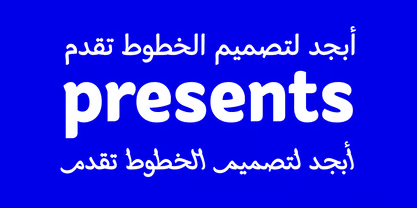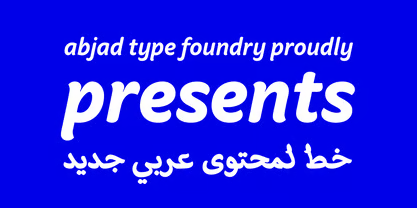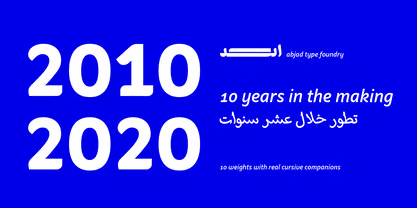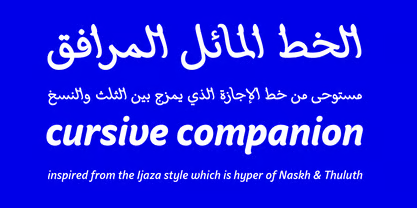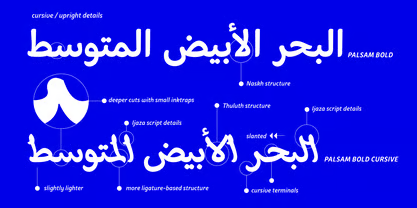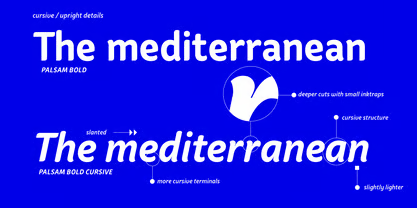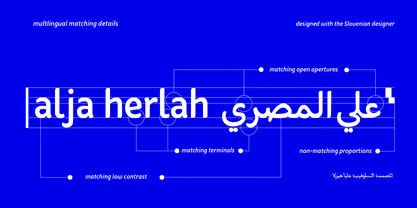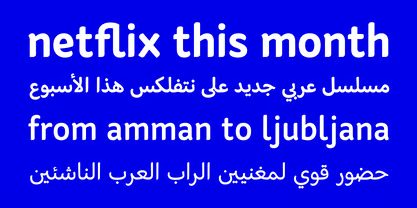
Palsam Arabic Font Family
Balsam—meaning a soothing, healing balm—is a thoughtfully crafted typeface that brings comfort and warmth to Persian, Arabic, and Urdu typography. With its gentle curves and approachable character, this font is designed to create designs that feel welcoming, nurturing, and emotionally resonant across all three scripts.
Design Characteristics:
• Gentle, soothing Persian, Arabic, and Urdu letterforms
• Warm, approachable character with healing quality
• Balanced proportions for excellent readability
• Soft curves with refined elegance
• Comforting visual presence
Persian (Farsi) Script:
• Complete Persian character set
• Full support for Persian-specific characters (گ، چ، پ، ژ)
• Correct representation of Persian numerals
• Proper character connections and positioning
• Gentle styling across all letters
Arabic Script:
• Coordinated Arabic design matching Persian style
• Complete Arabic character set
• Full support for Arabic diacritics and marks
• Harmonious weight and proportion
Urdu Script:
• Proper Urdu character set including specific letters
• Support for Urdu numerals and punctuation
• Correct representation with regional authenticity
• Seamless integration with Persian and Arabic
• Soothing Character: Gentle, healing visual presence
• Three Scripts, One Design: Consistent identity across Persian, Arabic, and Urdu
• Comprehensive Support: All characters for all three languages
• Approachable Feel: Warm, welcoming typography
Key Features of Balsam Font:
• Complete support for Persian (Farsi), Arabic, and Urdu scripts
• Gentle, soothing design with healing character
• Full character sets for each script
• Warm, approachable aesthetic